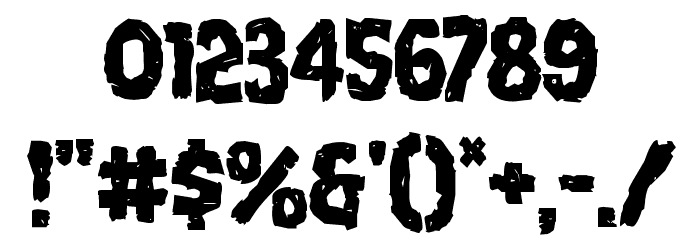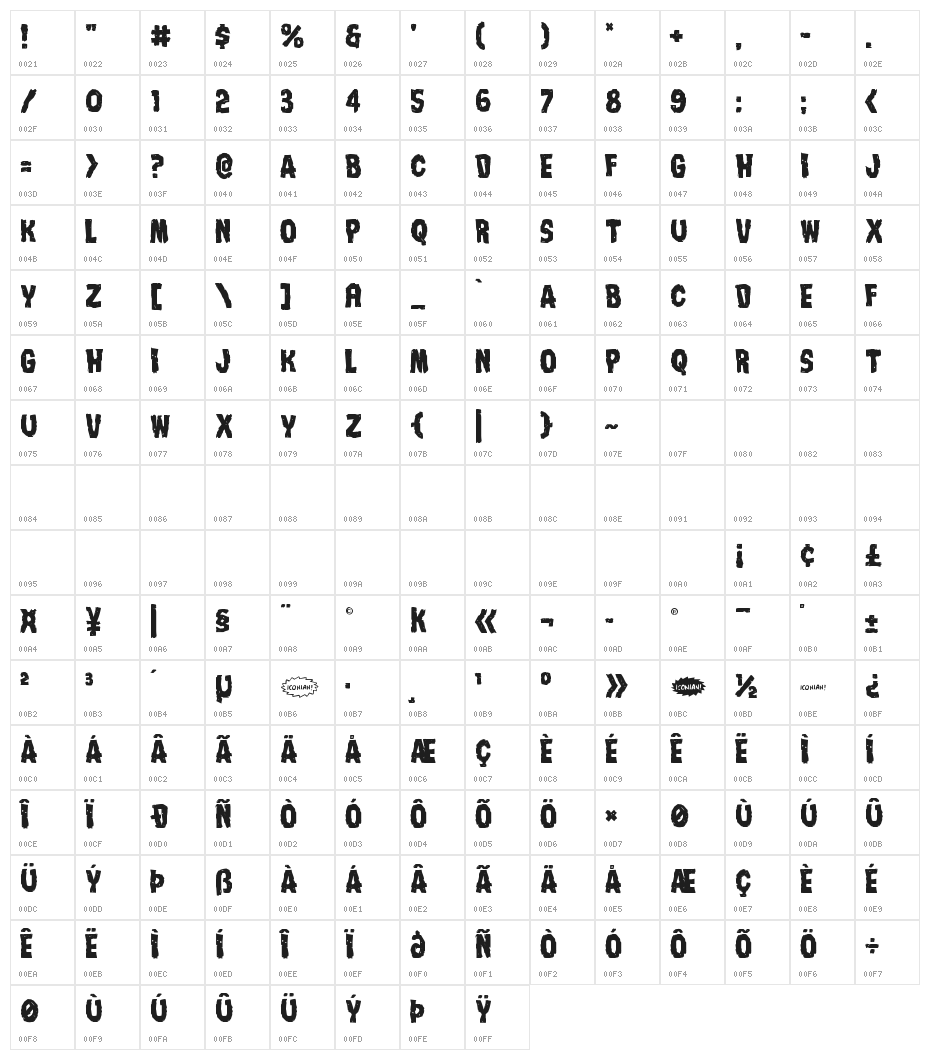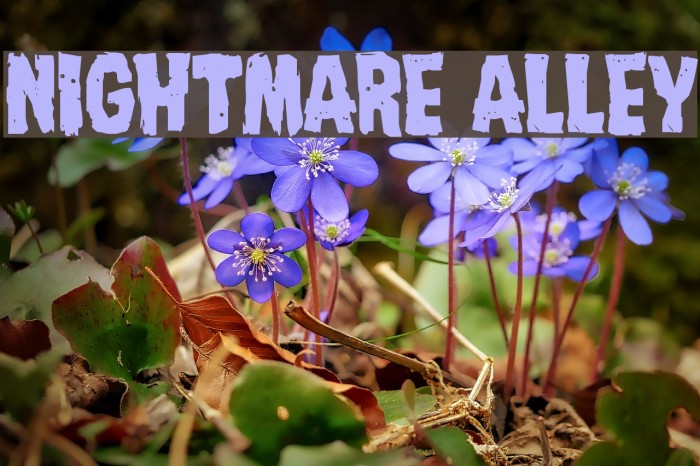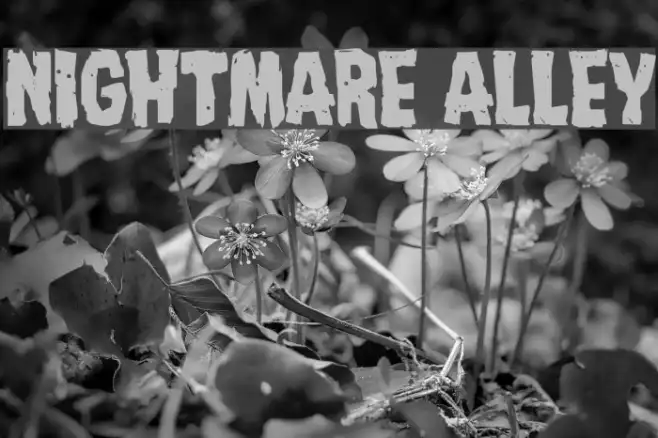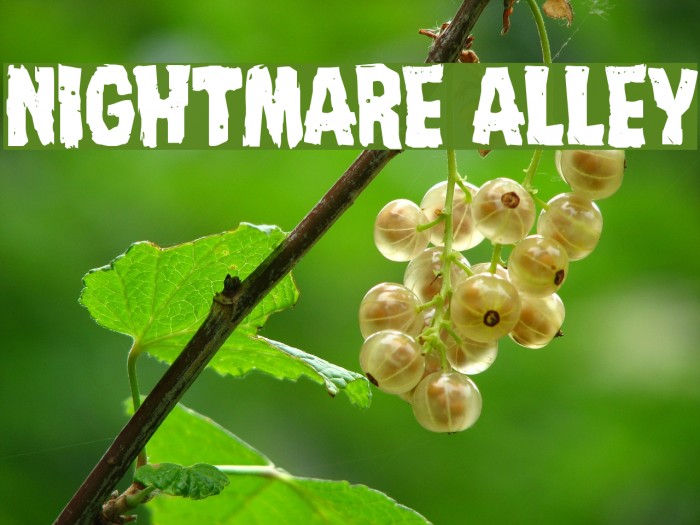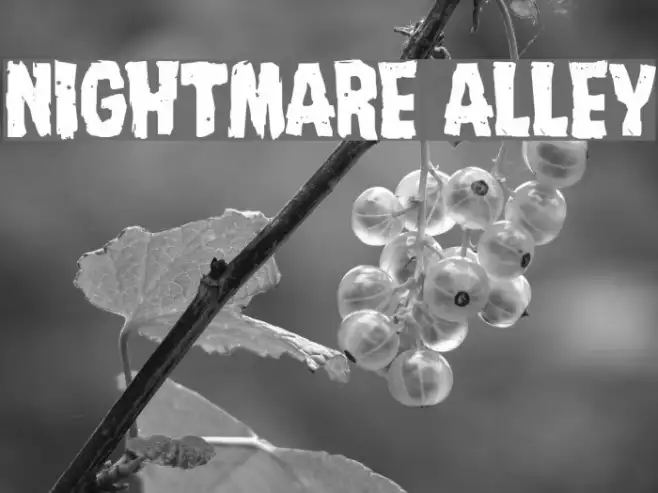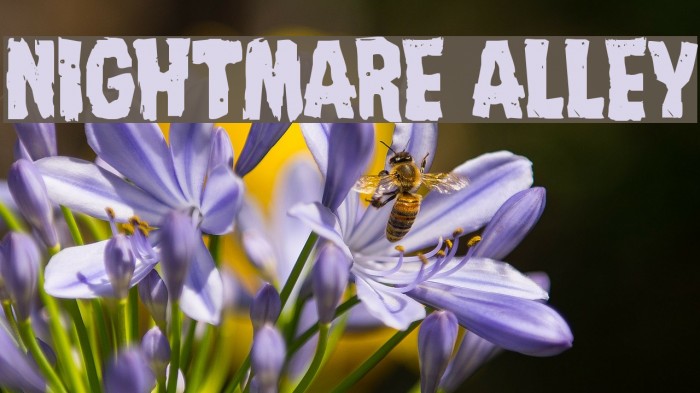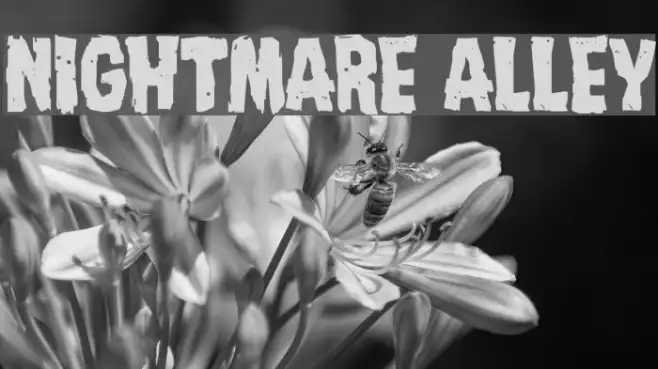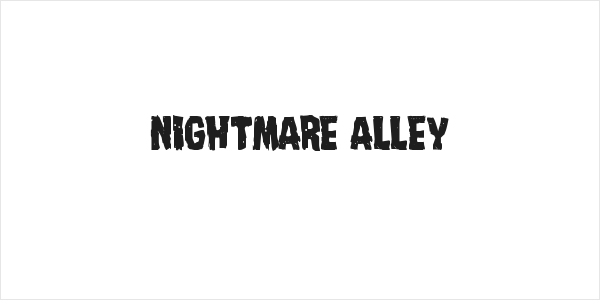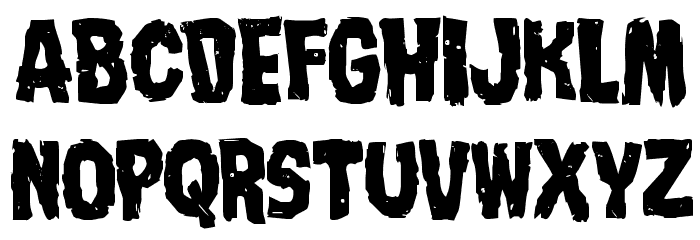
Nightmare Alley Font
Nightmare Alley Description
This font features a bold, distressed style with a rough, textured appearance. Each character appears as if it has been hand-carved or eroded, giving it a gritty, organic feel. The uppercase and lowercase letters maintain a consistent weight, while the numbers and special characters follow the same rugged aesthetic. The font's uneven edges and irregular shapes contribute to its unique, eye-catching design, making it ideal for projects that require a bold, impactful statement. Its distinct style evokes a sense of mystery and intrigue, perfect for themes related to horror, suspense, or adventure.